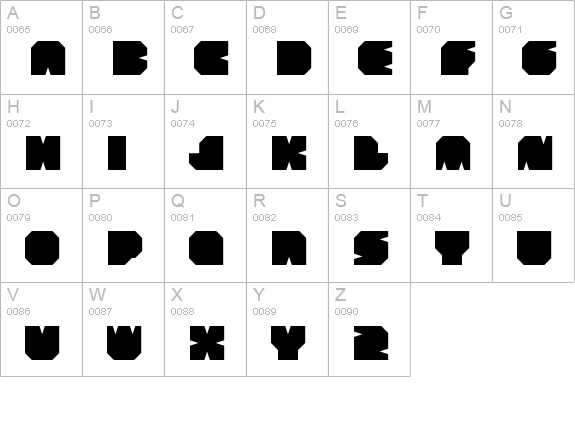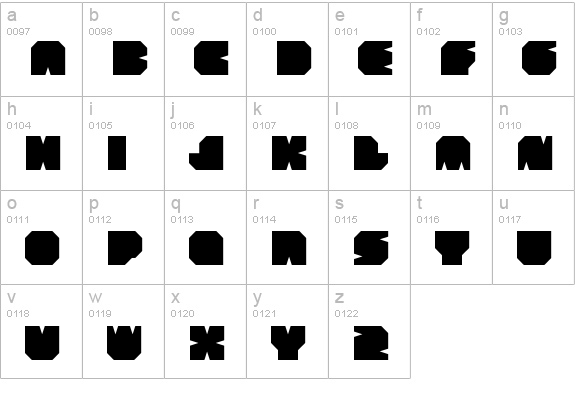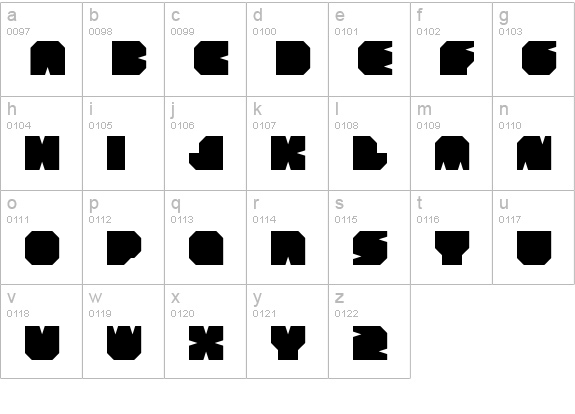
BOODAS.DE | Subtract Font Details
BOODAS.DE | Subtract font is a modern and sleek typeface that exudes sophistication and elegance. Featuring clean lines and a minimalist design, this font is perfect for a wide range of projects, from branding to editorial design. Its versatility makes it a great choice for both digital and print applications. The best part? BOODAS.DE | Subtract font is available for free download at FontsMarket.com. This means you can easily access this high-quality font without breaking the bank. Whether you're a professional designer or a hobbyist looking to elevate your projects, this font is a valuable addition to your font collection. With its timeless aesthetic and easy readability, BOODAS.DE | Subtract font is sure to make a statement in any design project. Download it for free today and see how it can elevate your work to the next level.